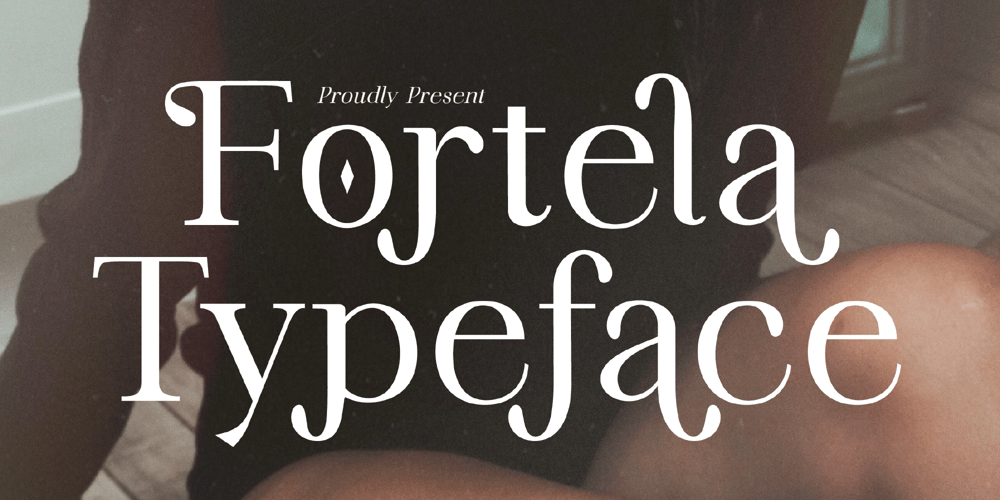
Fortela Typeface Font Family was designed by Heru Utama Putra and published by Letterena Studios. Fortela Typeface contains 2 styles and family package options. Fortela Typeface is a modern and classic serif font with its own unique style and modern look.This typeface is perfect for an elegant & luxury logo, book or movie title design, fashion brand, magazine, clothes, lettering, quotes, and so much more. This font is PUA encoded, which means you can access all of the glyphs and swashes with ease!